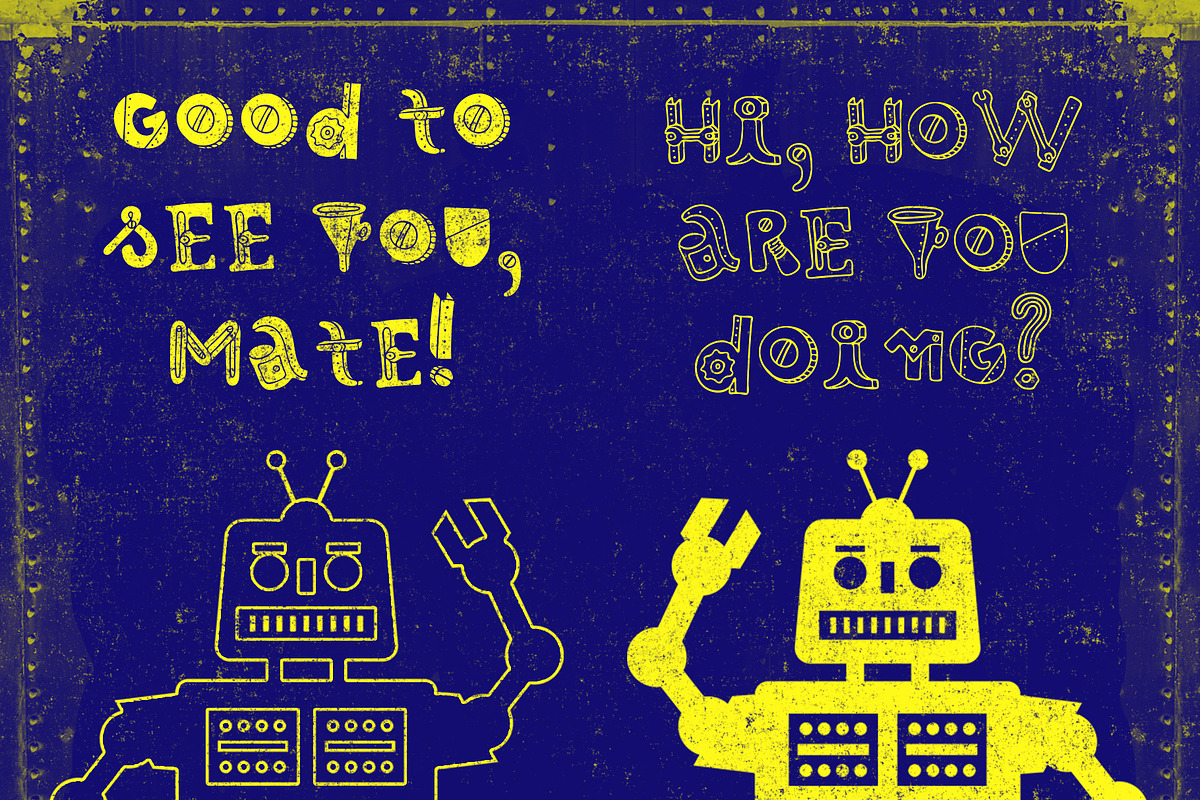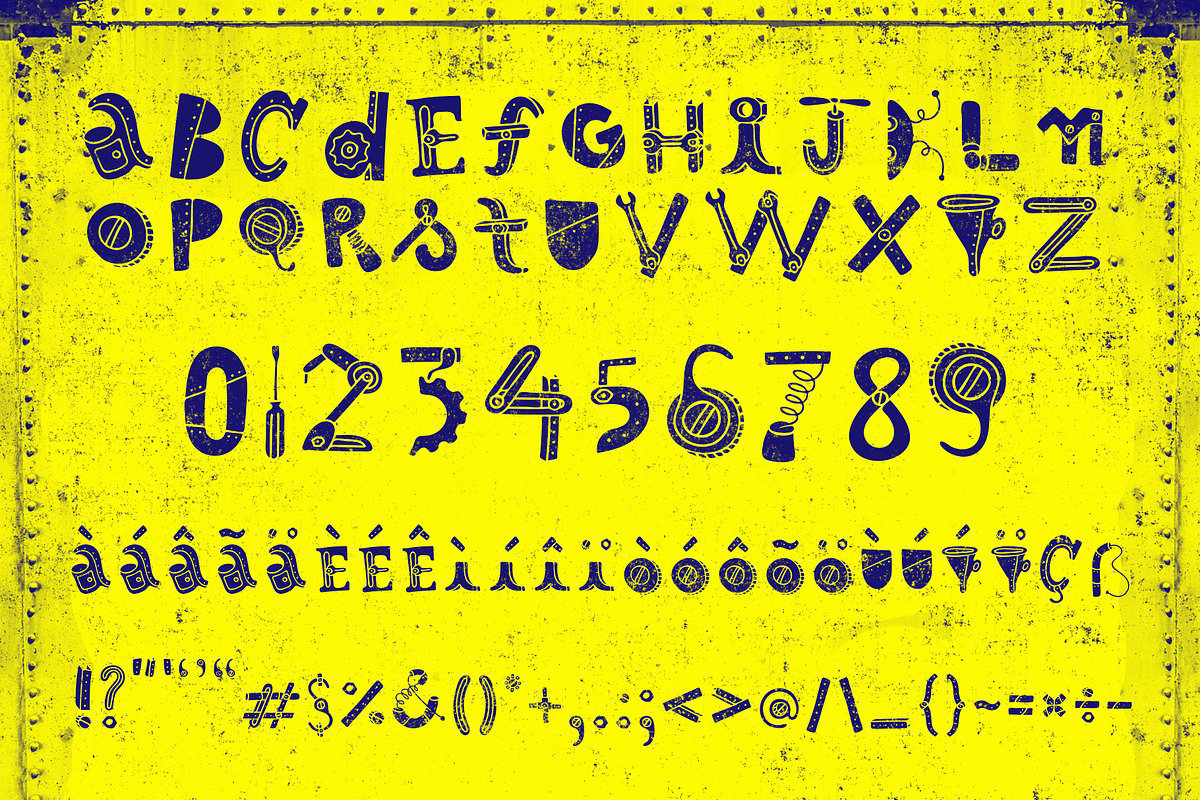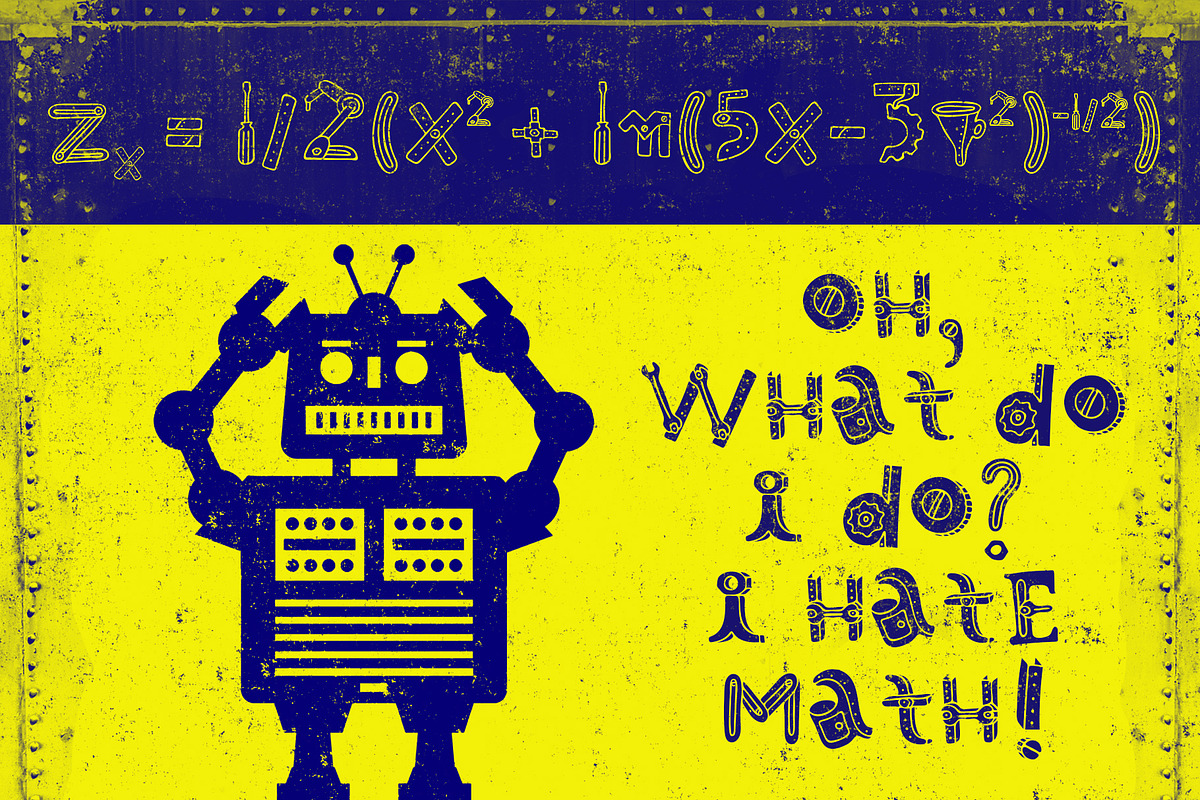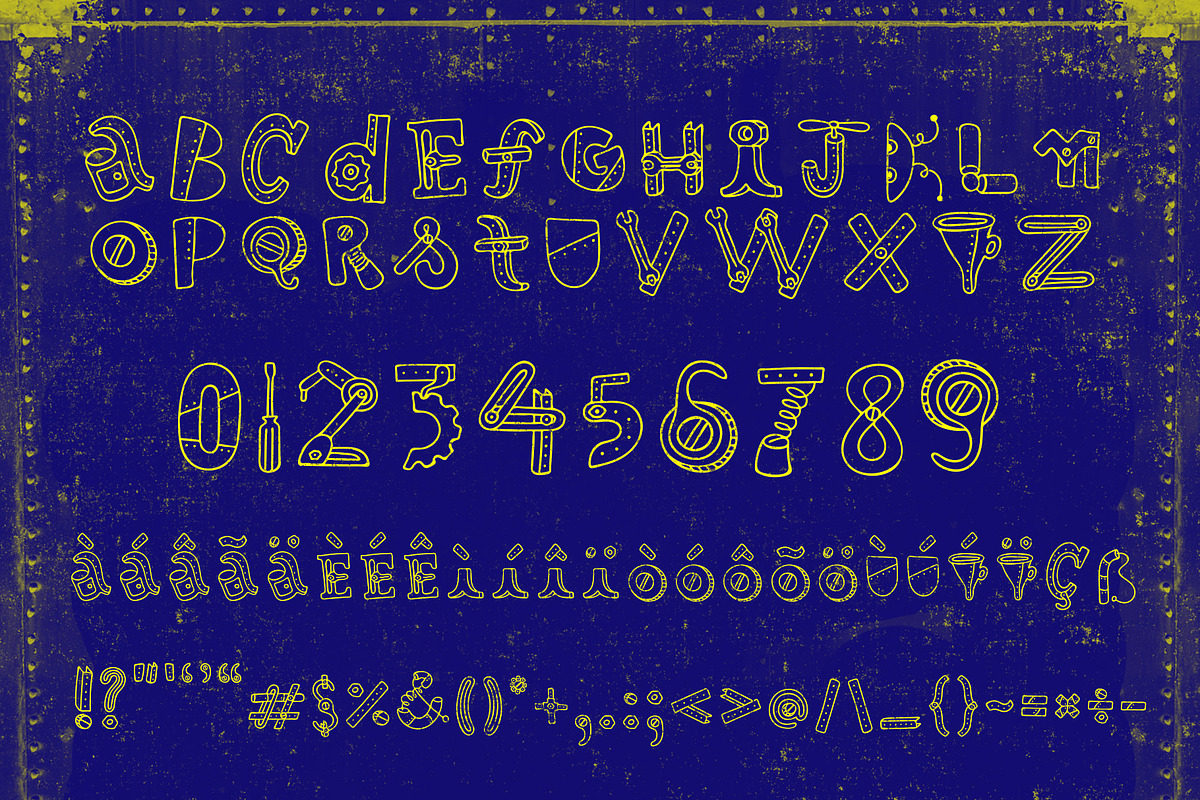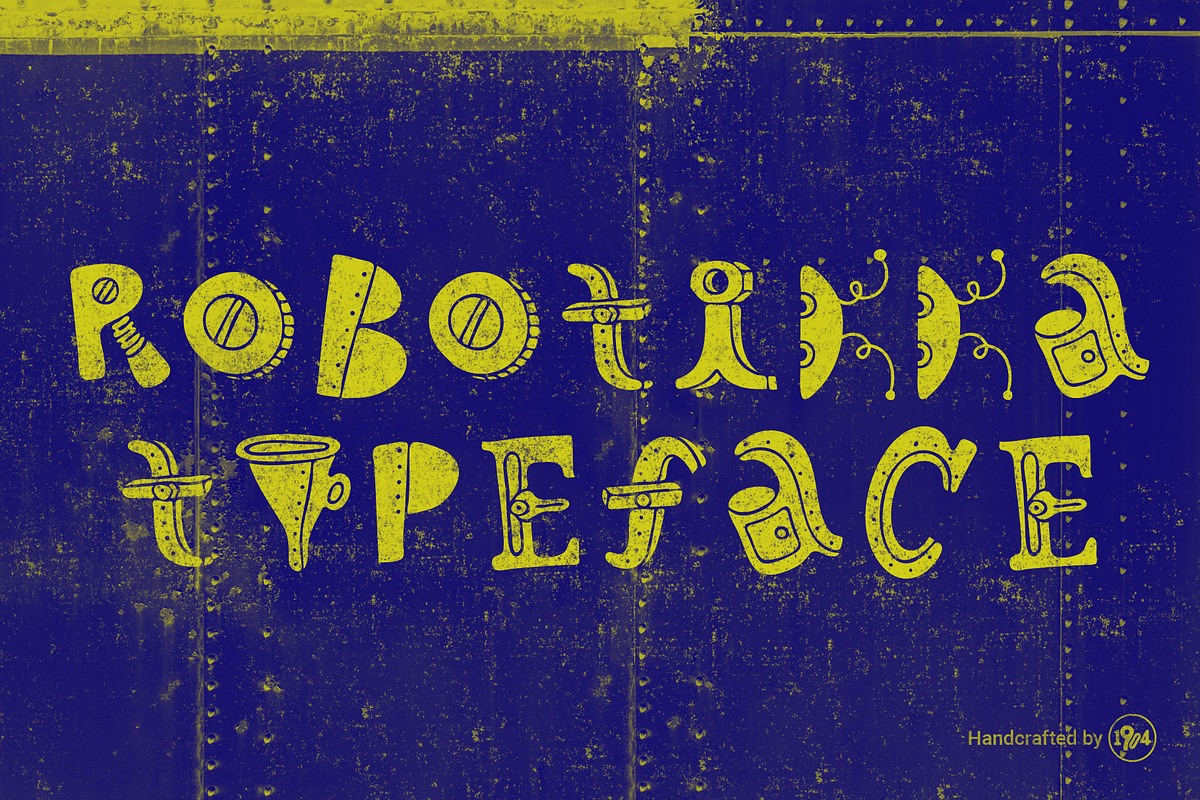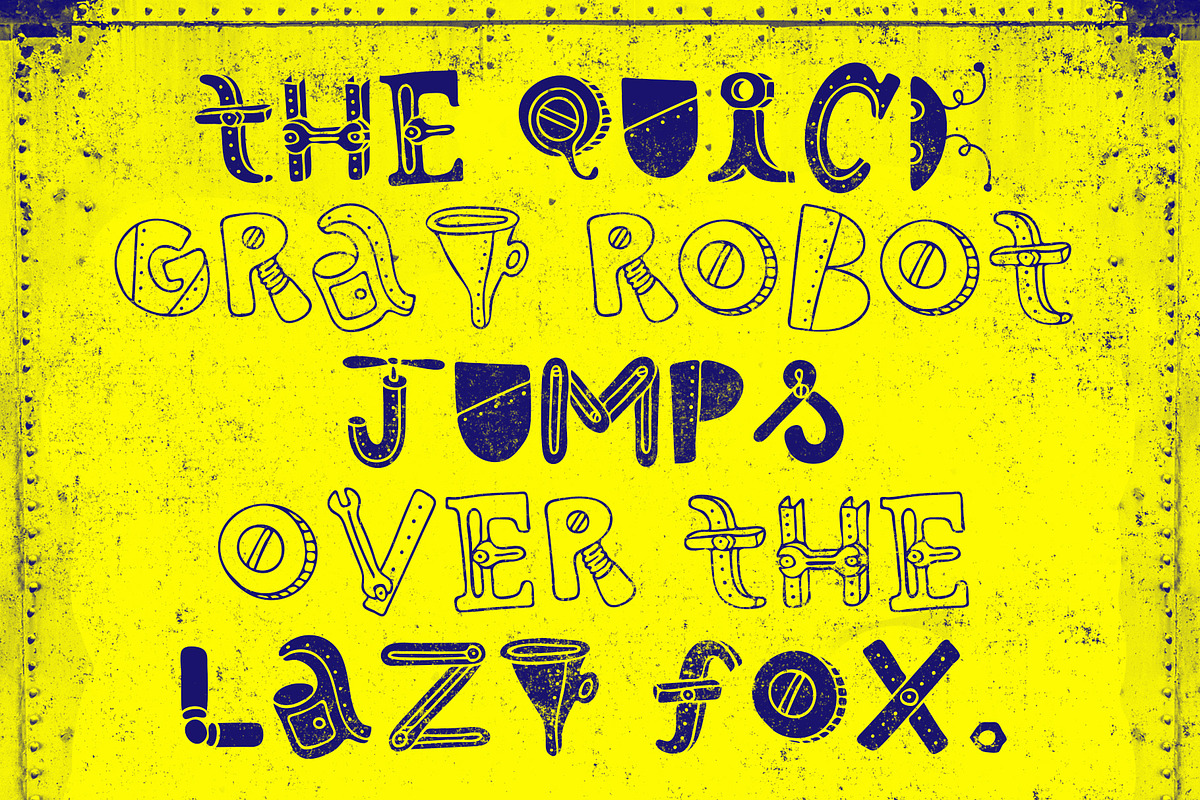
Robotikka Typeface
Robotikka is a handcrafted .otf typeface to be used in fun projects as children's books, editorial, along with illustrations, etc. Robotikka has 2 versions: Outline and Fill. They can be used combined or separately. Have Fun!
Robotikka Typeface by 1904 Studio fits naturally into Branding, posters, packaging, typography.